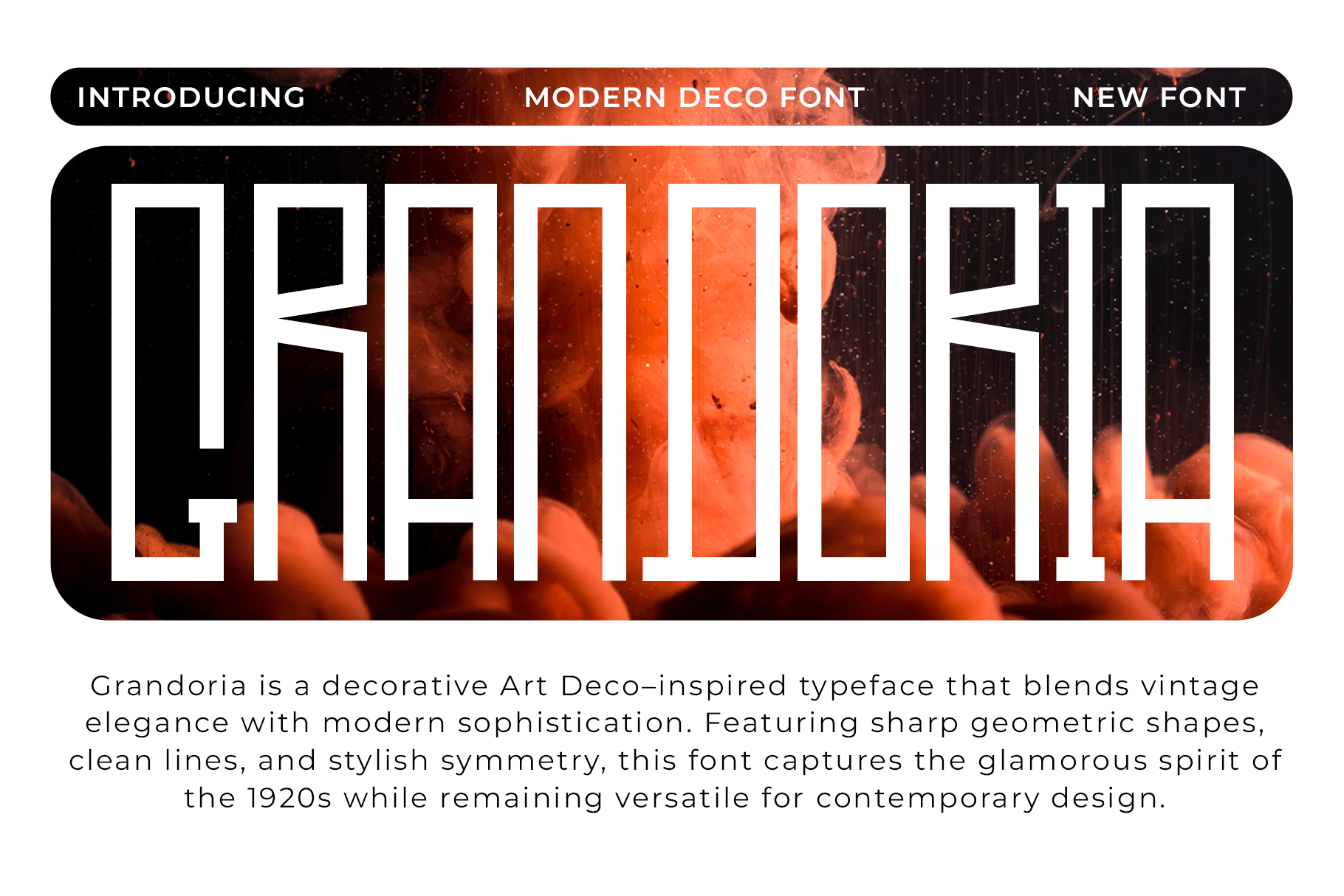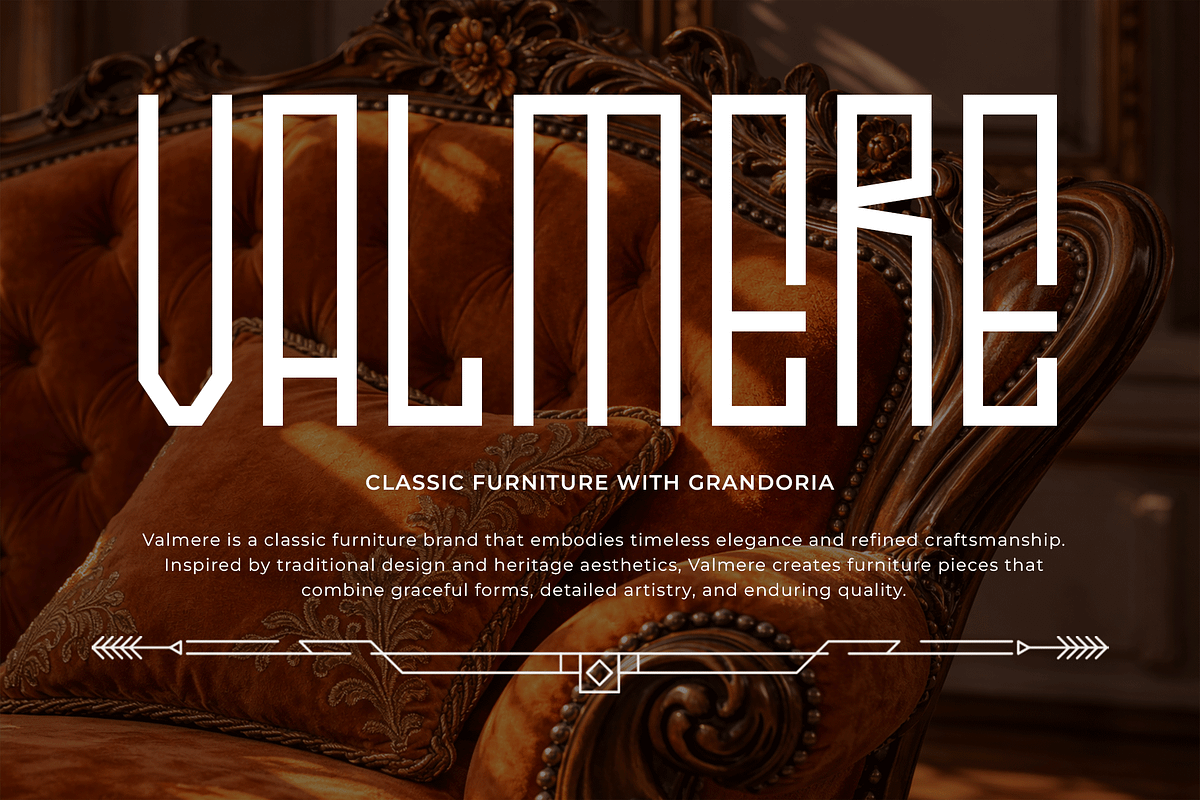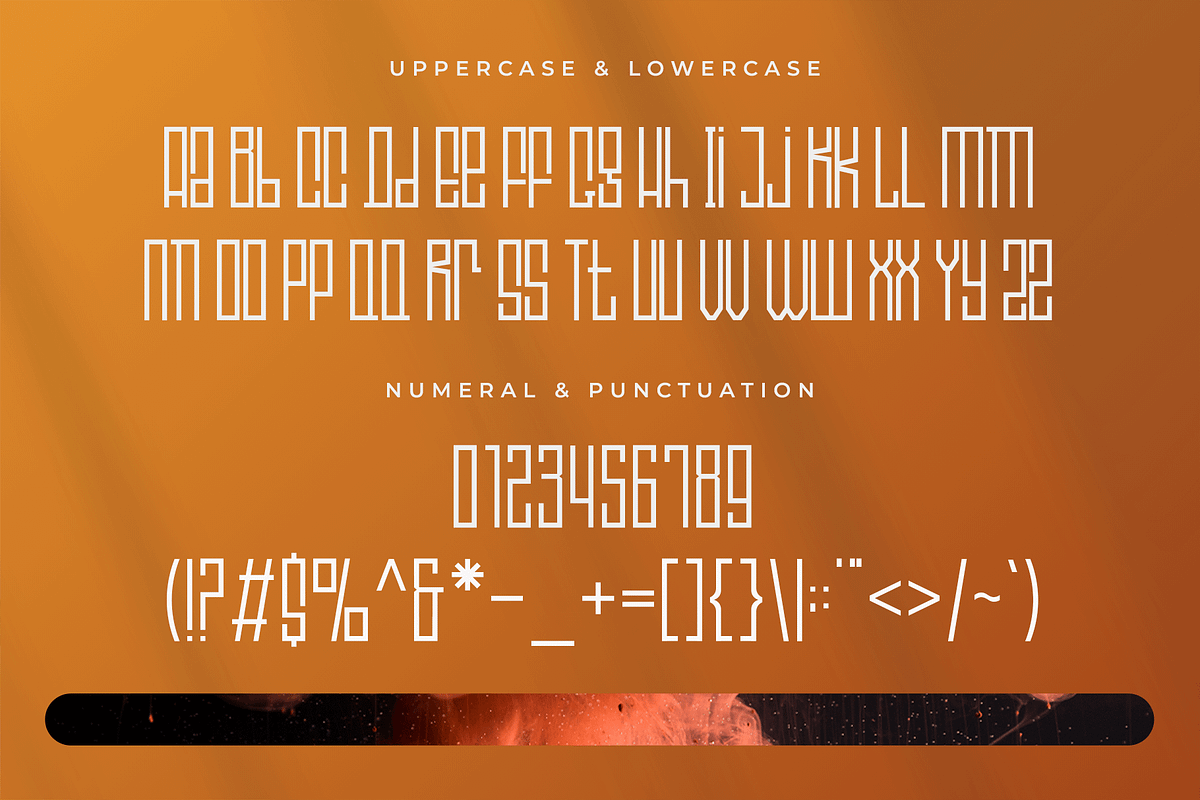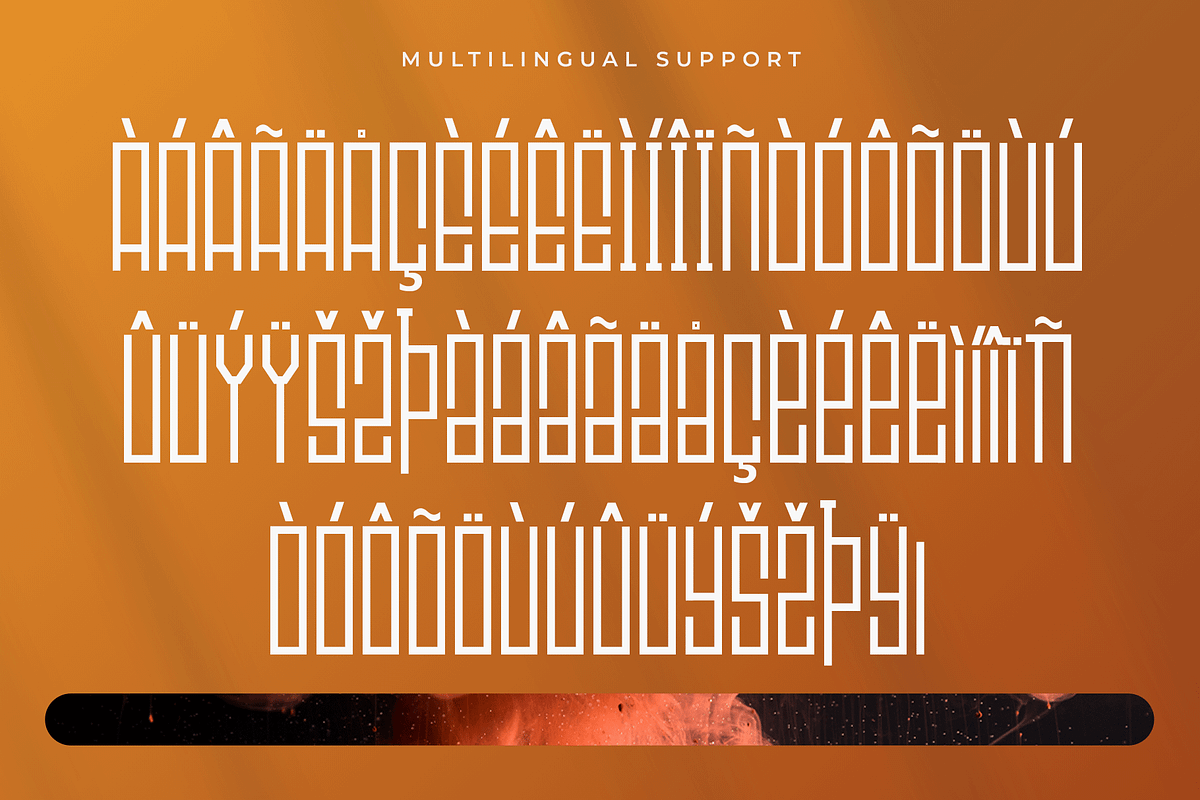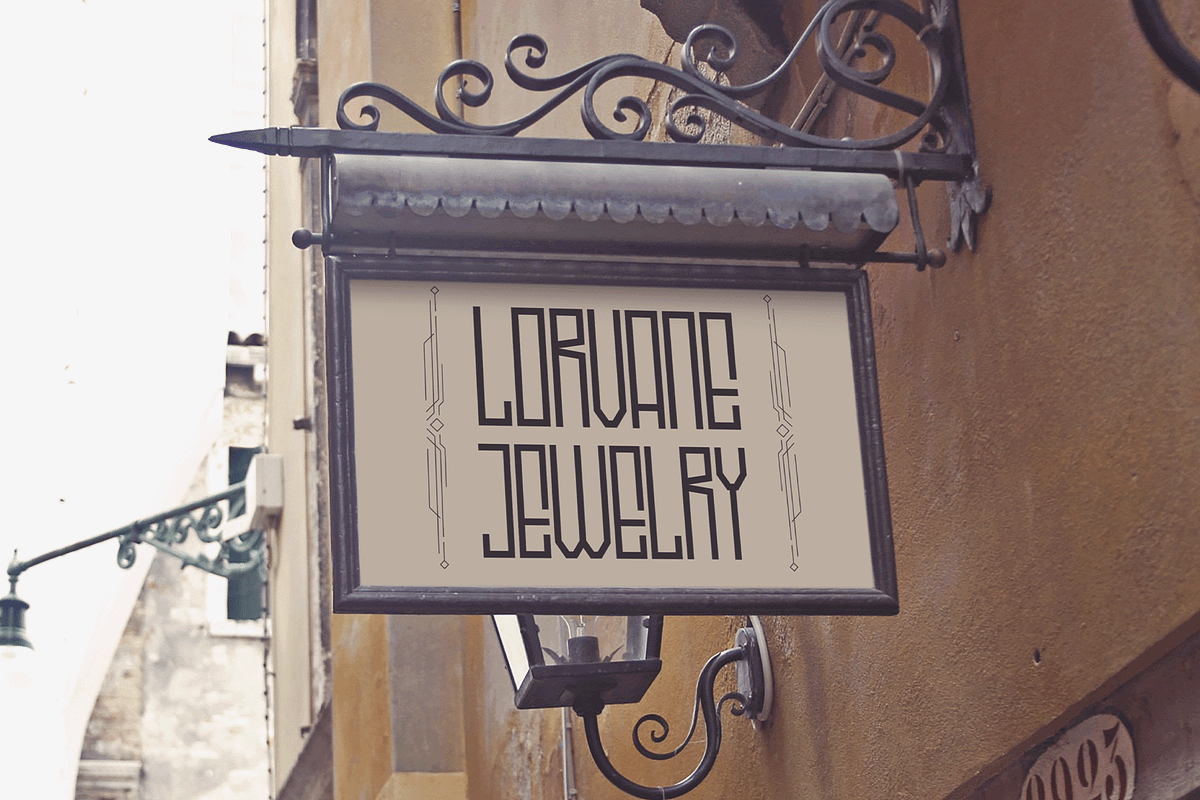
Grandoria - Modern Deco Font
Introducing Grandoria, a modern deco font inspired by the timeless elegance of Art Deco design. Featuring geometric precision, graceful curves, and sophisticated proportions, Grandoria blends vintage glamour with contemporary refinement to create a striking typographic style.
Perfect for luxury branding, posters, invitations, editorial titles, packaging, signage, and fashion related designs, Grandoria brings a sense of prestige and artistic beauty to every project. Its distinctive letterforms capture the spirit of the 1920s while remaining clean and modern for today’s creative needs.